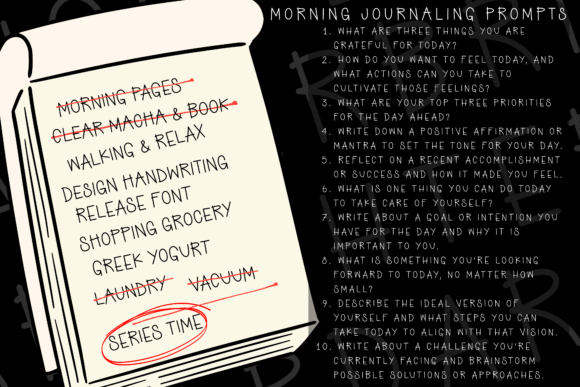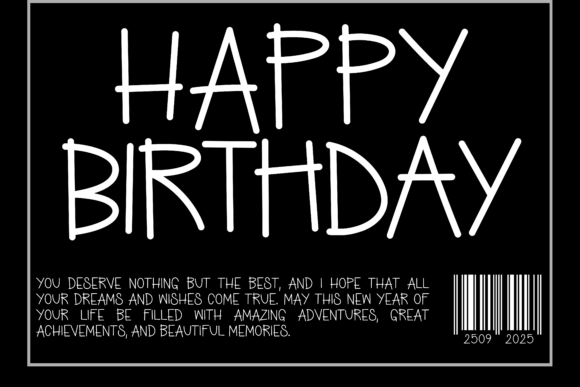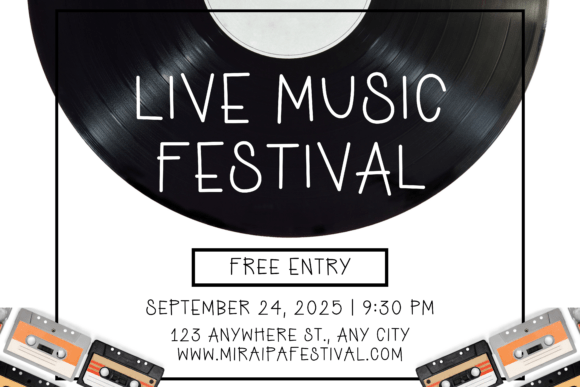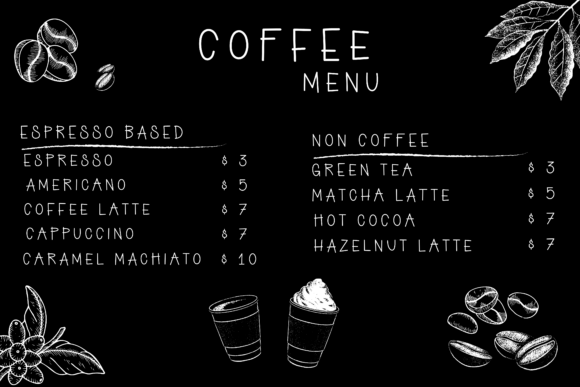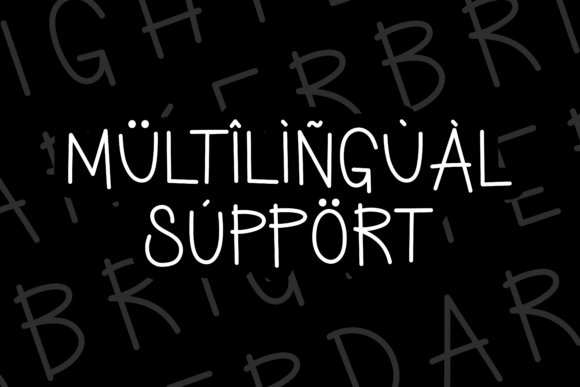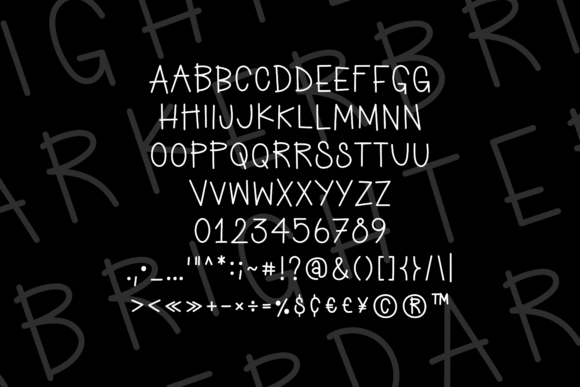
Introducing the Darker Brighter Font: A Quirky and Friendly Handwritten Sans Serif Font
Are you tired of using the same old fonts for your design projects? Look no further! We’re excited to introduce the “Darker Brighter” font, a quirky and friendly handwritten sans serif font that’s perfect for adding a cute touch to your designs. Whether you’re working on a t-shirt, coffee mug, hoodie, tote bag, or digital project, this font is sure to bring a smile to your audience’s faces.
The Darker Brighter font is incredibly versatile and can be used for a variety of projects, including:
- T-shirts and apparel
- Coffee mugs and ceramics
- Hoodies and sweatshirts
- Tote bags and accessories
- Digital planners and notes
- Printing projects and more!
A Full Character Set at Your Fingertips
The Darker Brighter font offers a full character set, including:
- Uppercase and lowercase letters
- Numerals and digits
- Punctuation and symbols
This means you can create a wide range of designs, from simple and straightforward to complex and creative. Whether you’re working on a logo, headline, or body text, this font has got you covered.
Multilingual Support for Diverse Content
In today’s digital age, content is king, and language is no longer a barrier. The Darker Brighter font offers multilingual support, making it perfect for designers and crafters who work with diverse content types and languages.
Whether you’re creating content for a global audience or working with clients from different linguistic backgrounds, this font ensures that your designs are consistent and professional.
Why Choose the Darker Brighter Font?
So, why choose the Darker Brighter font for your design projects? Here are just a few reasons:
- Unique and quirky style: This font is perfect for designers who want to add a touch of personality to their designs.
- Easy to read: The sans serif design makes it easy to read, even at small sizes.
- Versatile: Use it for digital projects, printing projects, or social media posts.
- Multilingual support: Perfect for designers who work with diverse content types and languages.
Tips for Using the Darker Brighter Font
Here are a few tips for getting the most out of the Darker Brighter font:
- Experiment with colors: This font looks great in a variety of colors, so don’t be afraid to experiment and find the perfect hue for your design.
- Mix and match: Combine the Darker Brighter font with other fonts to create a unique and eye-catching design.
- Play with sizes: Use the font at different sizes to create visual interest and hierarchy in your design.
The Darker Brighter font is a quirky and friendly handwritten sans serif font that’s perfect for designers and crafters who want to add a cute touch to their designs. With its full character set, multilingual support, and versatile design, this font is sure to become a favorite in your design toolkit.